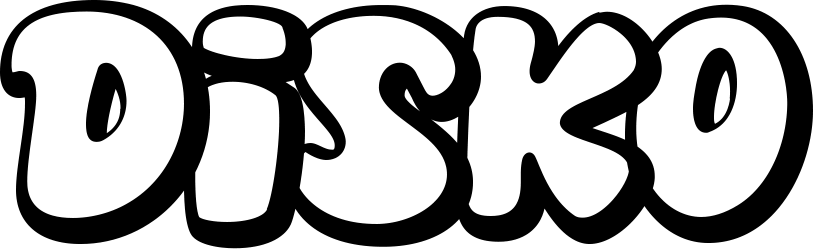
Disko Font
Share a friendly and lovely mood with this groovy font. Disko has chubby and rounded characters. You can use it for posters, children’s programs, stickers, and so forth. Give it a try and see how cute it appears. Head over to Resource Boy and reach hundreds of 70s disco fonts.